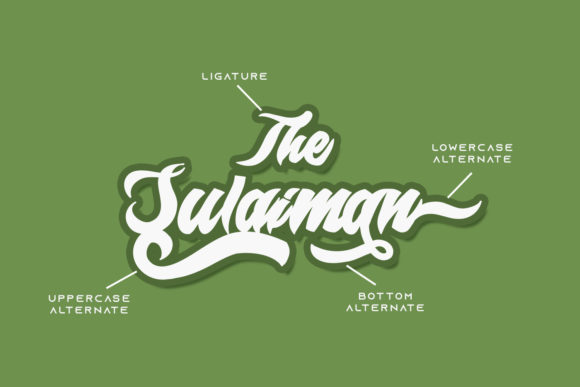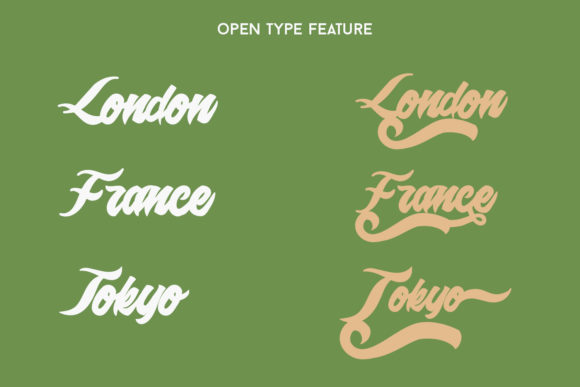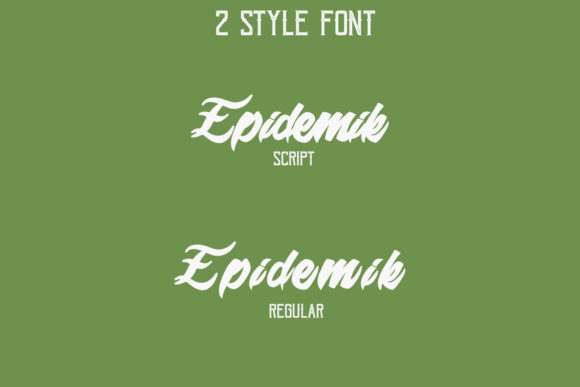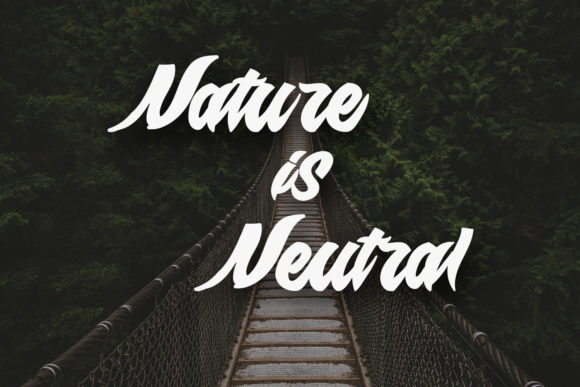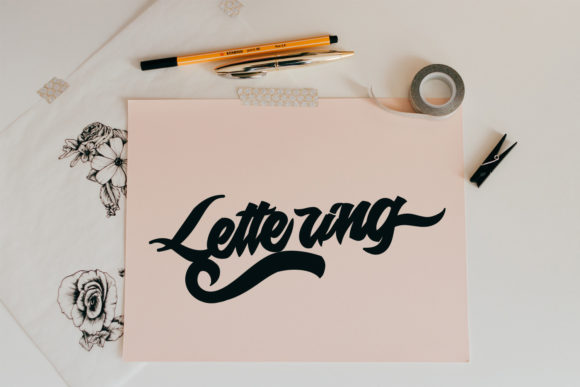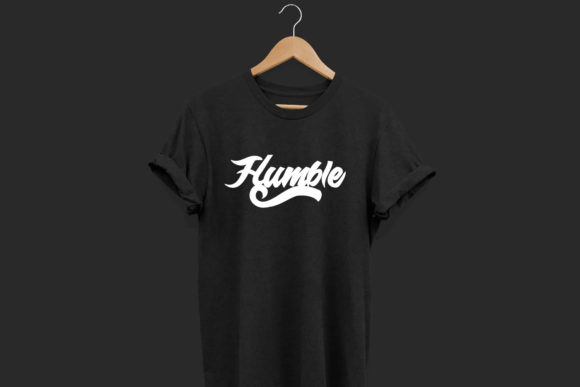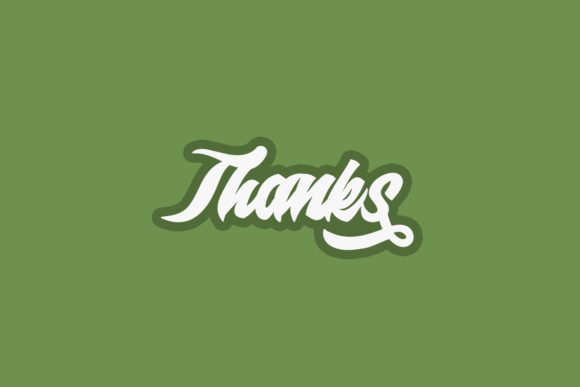
Epidemik Font
About Epidemik Font
Epidemik is a modern script font with a unique and authentic style. It will turn any design idea into a true stand out!